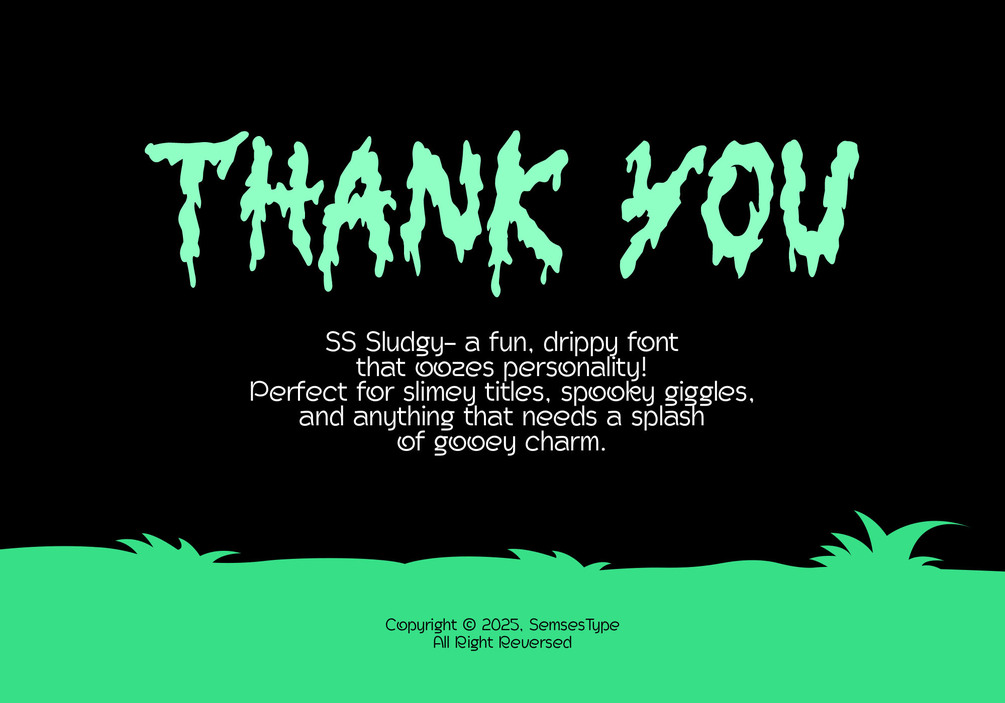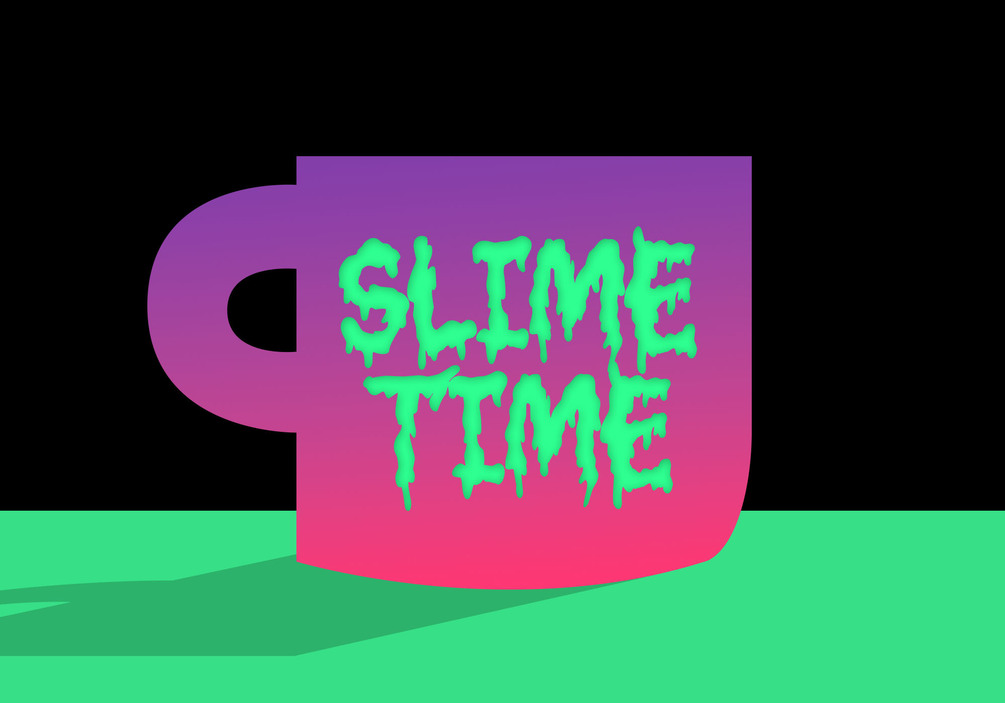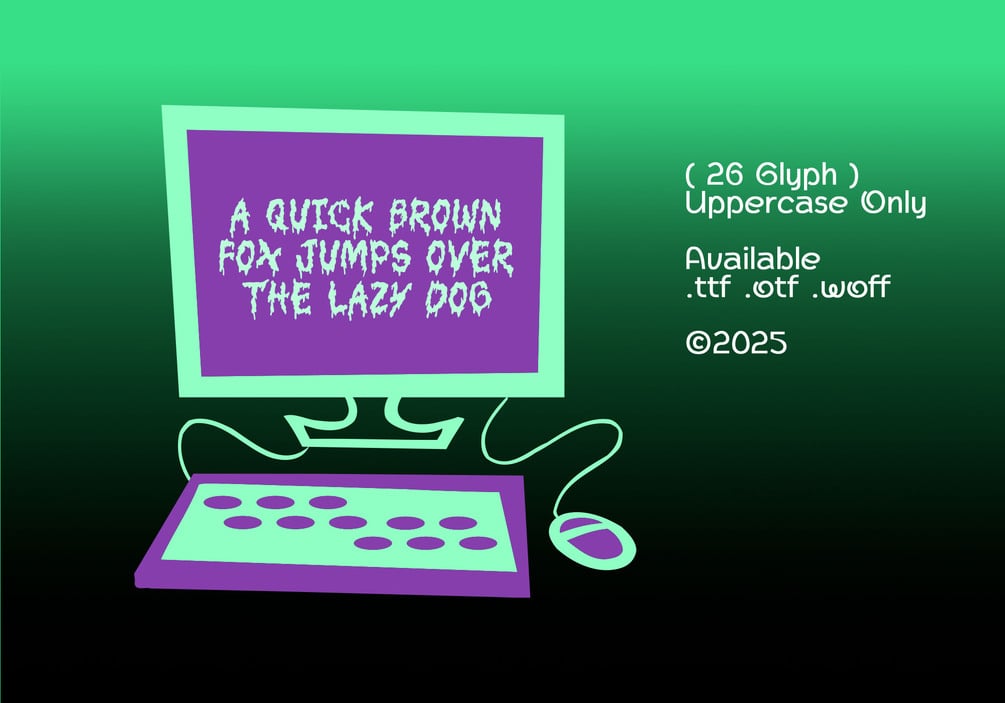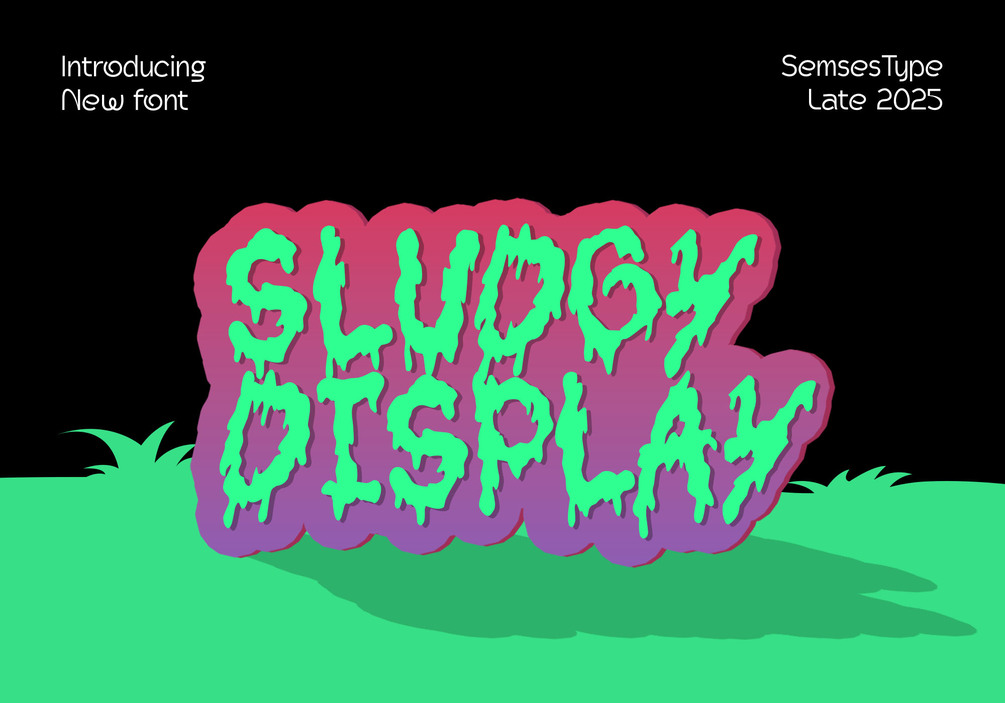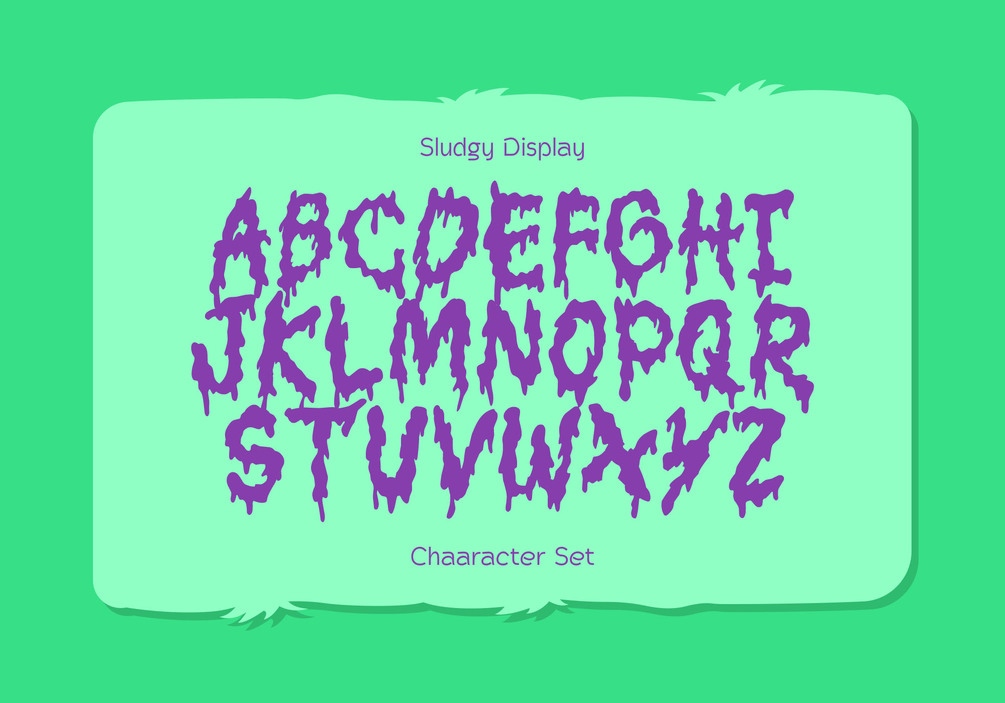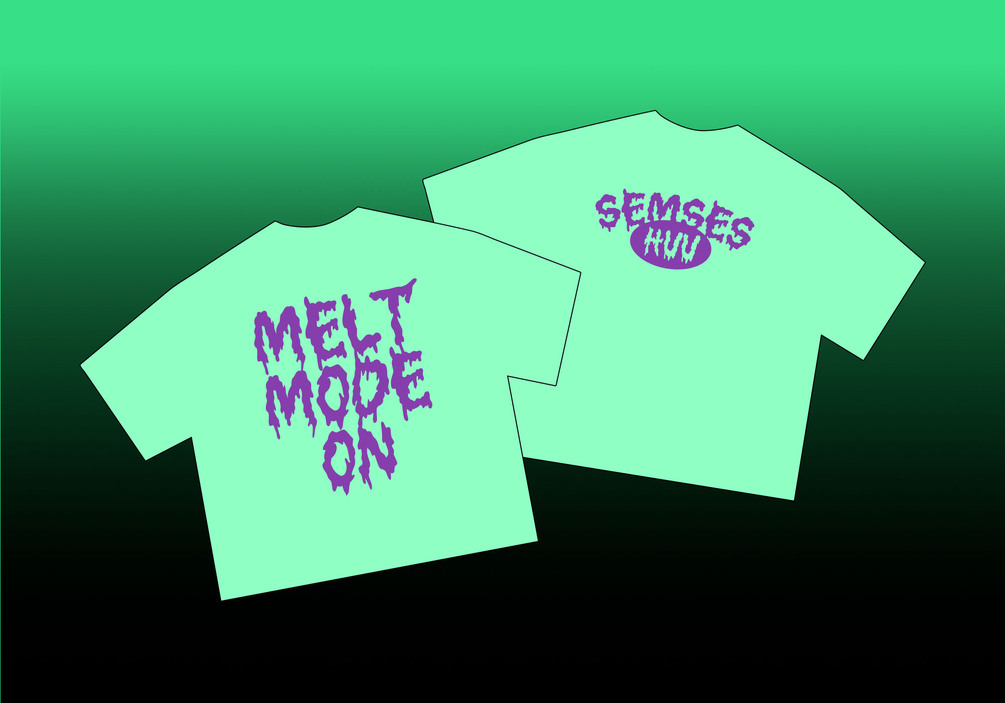
SS-Sludgy - Display Font
SS Sludgy– a fun, drippy fontthat oozes personality!
Perfect for slimey titles, spooky giggles,and anything that needs a splash of gooey charm.